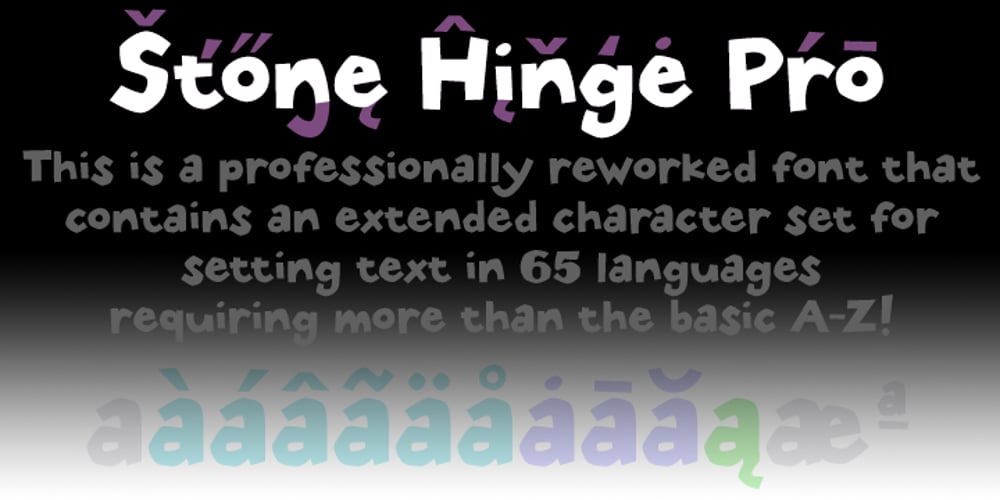
Stone Hinge Pro
Stone Hinge Pro font
Stone Hinge Pro Font Family was designed by Ronna Penner, Roger S. Nelsson and published by CheapProFonts. Stone Hinge Pro contains 1 styles and family package options. This font has sort of a rustic an ancient look, like stone carvings… The lowercase j has been redesigned to better fit with the other letters, and I’ve also made an alternate f (as an OpenType contextual alternate) to make a tighter fit with following tall letters. ALL fonts from CheapProFonts have very extensive language support: They contain some unusual diacritic letters (some of which are contained in the Latin Extended-B Unicode block) supporting: Cornish, Filipino (Tagalog), Guarani, Luxembourgian, Malagasy, Romanian, Ulithian and Welsh. They also contain all glyphs in the Latin Extended-A Unicode block (which among others cover the Central European and Baltic areas) supporting: Afrikaans, Belarusian (Lacinka), Bosnian, Catalan, Chichewa, Croatian, Czech, Dutch, Esperanto, Greenlandic, Hungarian, Kashubian, Kurdish (Kurmanji), Latvian, Lithuanian, Maltese, Maori, Polish, Saami (Inari), Saami (North), Serbian (latin), Slovak(ian), Slovene, Sorbian (Lower), Sorbian (Upper), Turkish and Turkmen. And they of course contain all the usual “western” glyphs supporting: Albanian, Basque, Breton, Chamorro, Danish, Estonian, Faroese, Finnish, French, Frisian, Galican, German, Icelandic, Indonesian, Irish (Gaelic), Italian, Northern Sotho, Norwegian, Occitan, Portuguese, Rhaeto-Romance, Sami (Lule), Sami (South), Scots (Gaelic), Spanish, Swedish, Tswana, Walloon and Yapese.